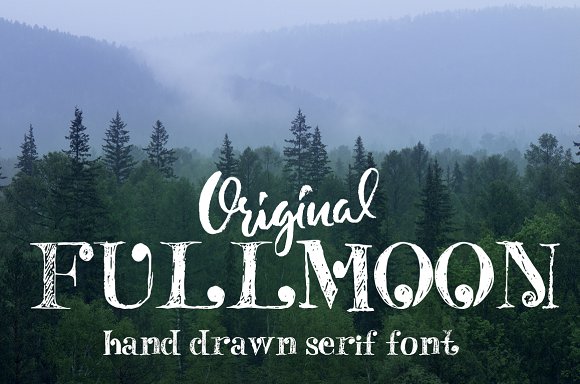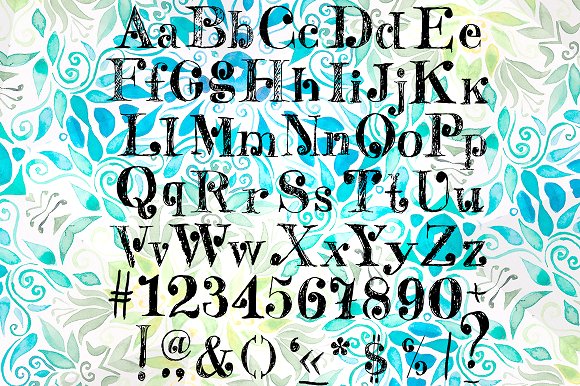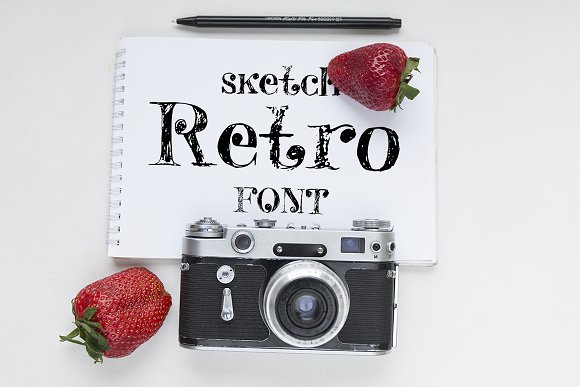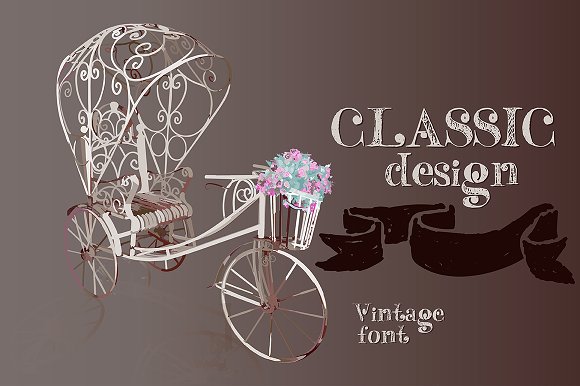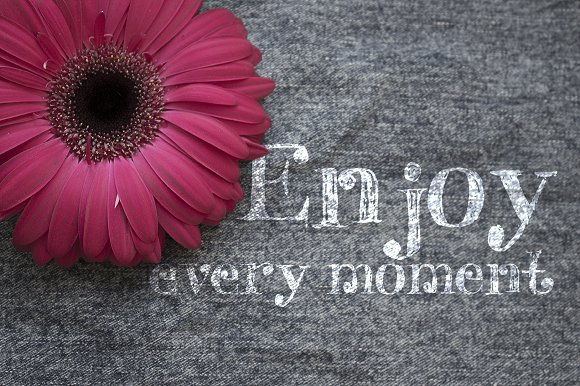
Fulmoon serif font
Hand drawn ink serif font. Perfect for retro projects, greeting cards, typography work and more. You can see all the letters, numbers and symbols on 3 preview.